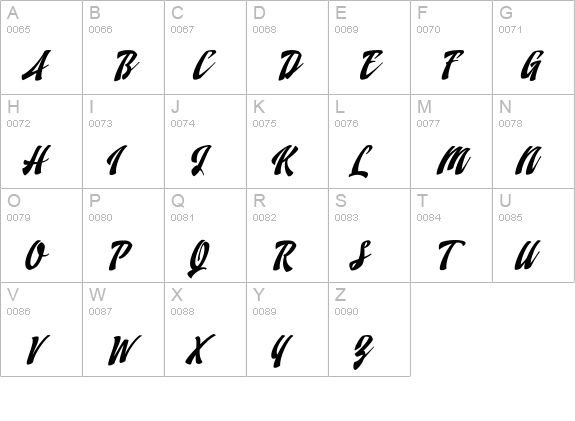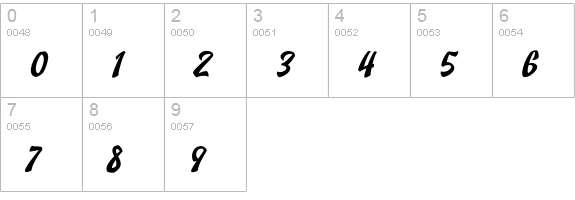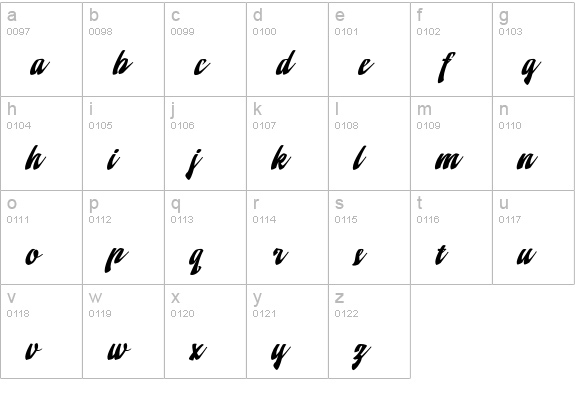
Doedel Standard Font Details
Doedel Standard font is a versatile and stylish typeface that is perfect for a wide range of design projects. Its clean lines and classic appeal make it suitable for both digital and print applications. This elegant font is ideal for creating eye-catching headlines, logos, invitations, and more. What sets Doedel Standard font apart is its seamless blend of modern sophistication and timeless charm. Its sleek letterforms exude a sense of professionalism and refinement, making it a great choice for projects that require a touch of elegance. The best part is that Doedel Standard font is available for free download at FontsMarket.com. This means you can easily access this high-quality font and use it in your projects without any cost. Don't miss out on the opportunity to enhance your designs with the beauty and versatility of Doedel Standard font. Download it today and elevate your creative work to new heights.